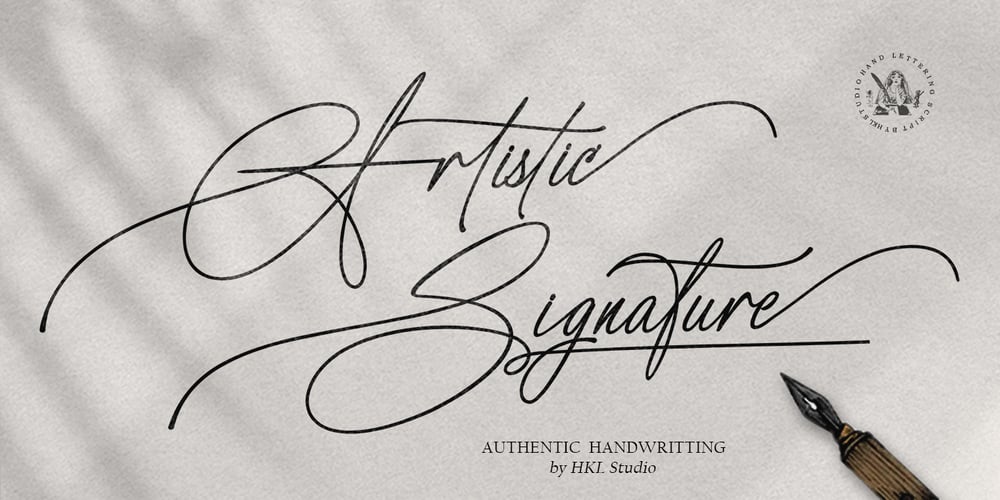
Artistic Sigature
Artistic Sigature Font Family was designed by T Haikal Budillah and published by HKL Studio. Artistic Sigature contains 1 styles and family package options. Artistic Signature is a modern, handwritten font with a magical emphasis. This font is perfect for creating signature logos and watermarks for photography studios or wedding invitations, best for signatures or initial logo branding.Artistic Signature includes a full set of beautiful handwritten upper and lower case letters, numbers, various punctuation and binding. All lowercase letters including initial and final strokes, have 54 bindings that give a realistic handwriting style.